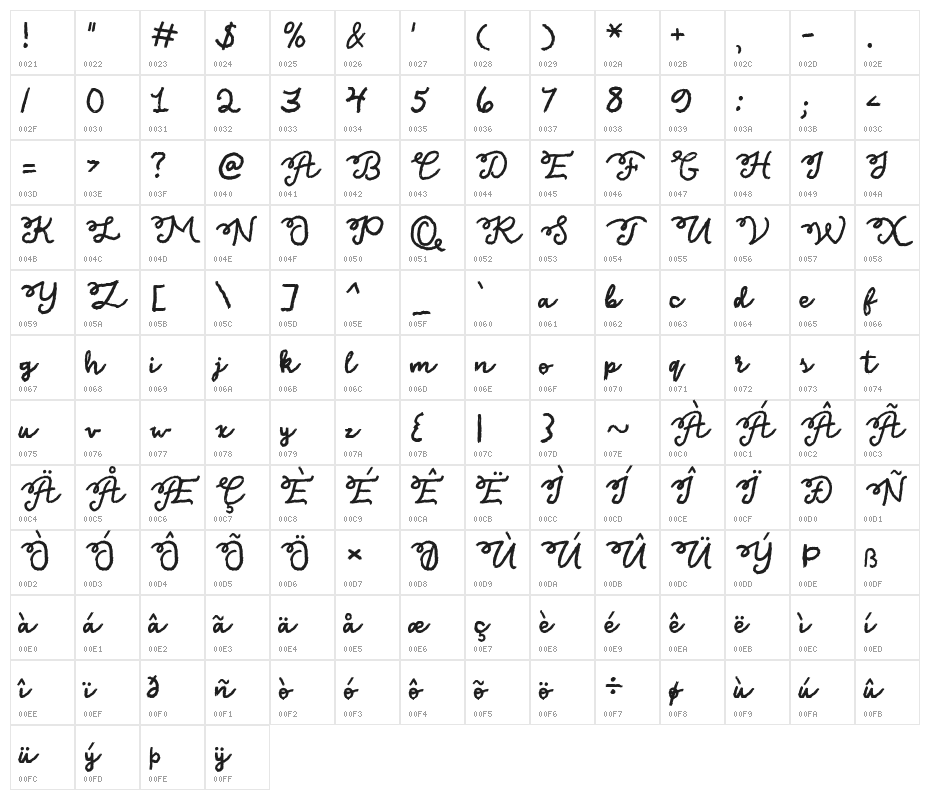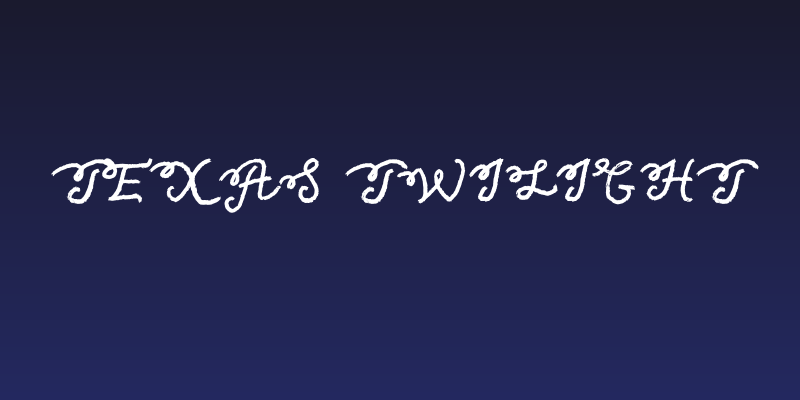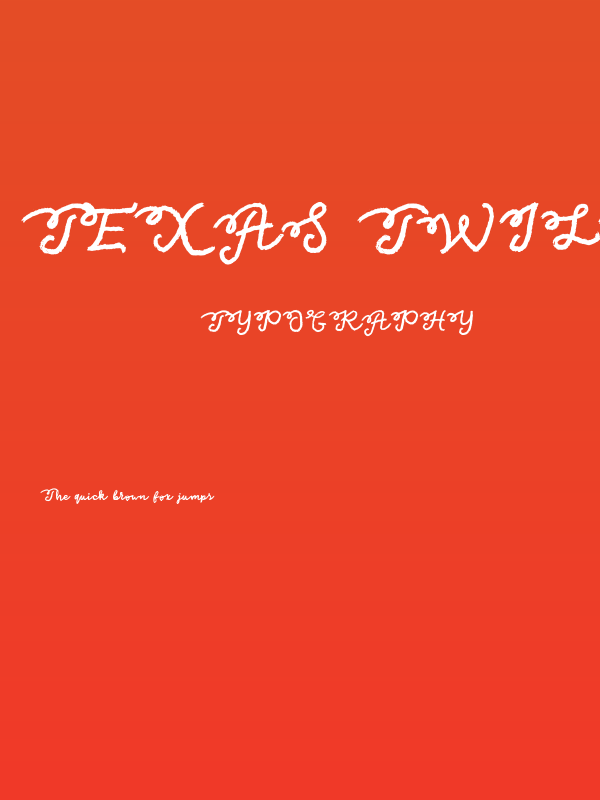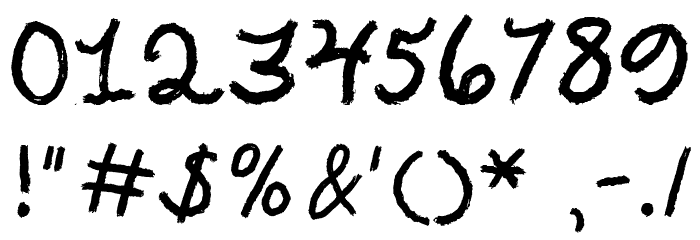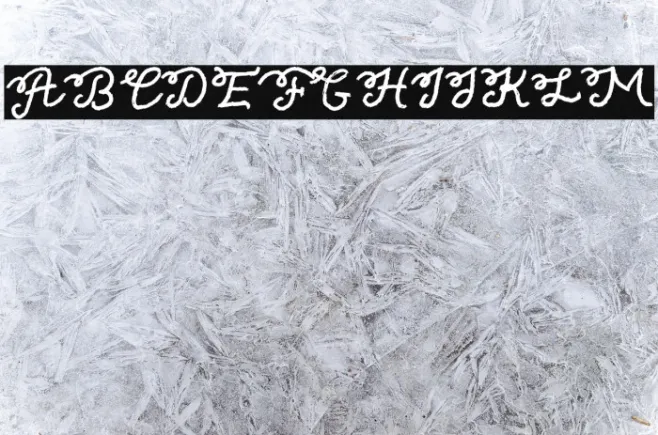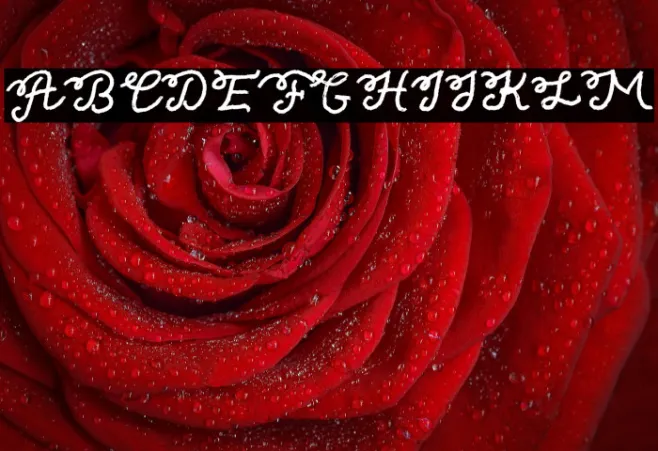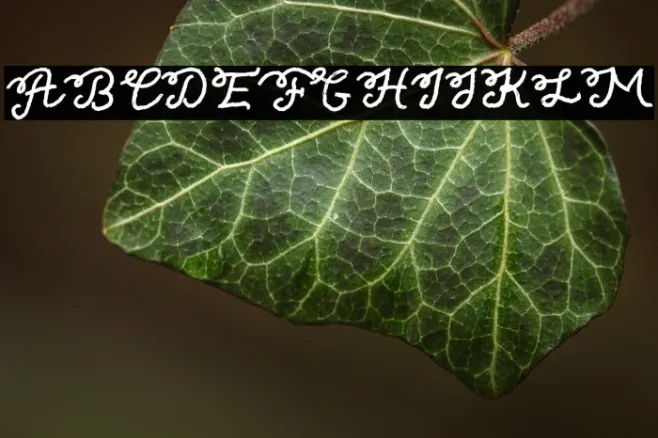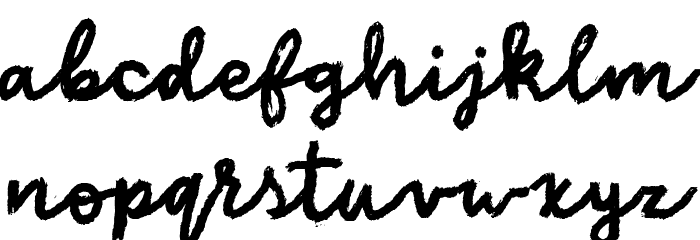
Texas Twilight Font
Texas Twilight Description
This font features a bold, handwritten style with a rustic and textured appearance, reminiscent of vintage script. The uppercase letters are elegantly curved with decorative flourishes, while the lowercase letters maintain a consistent flow, adding to its handcrafted charm. The numerals and special characters are equally bold, maintaining the textured look throughout. This font exudes a sense of warmth and personality, making it ideal for projects that require a personal touch.